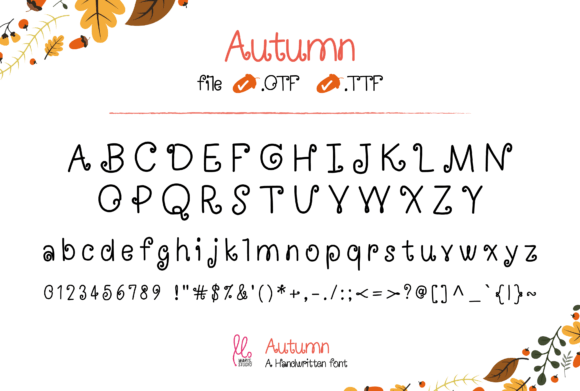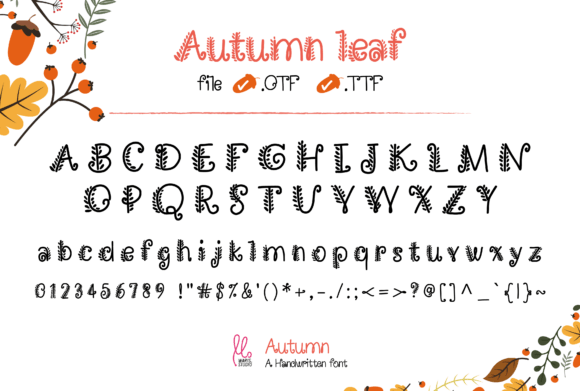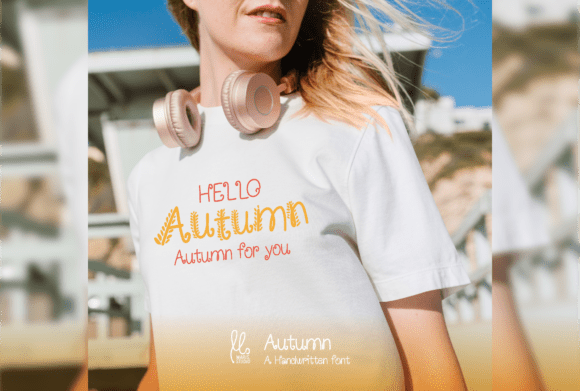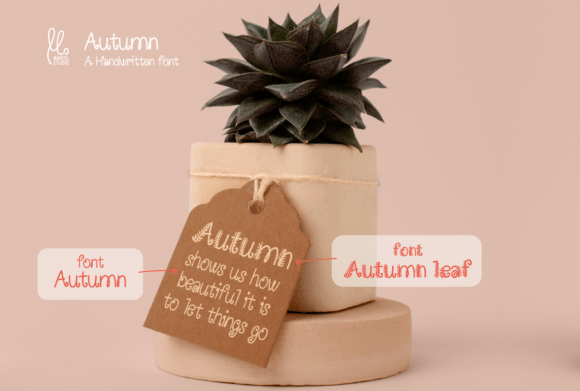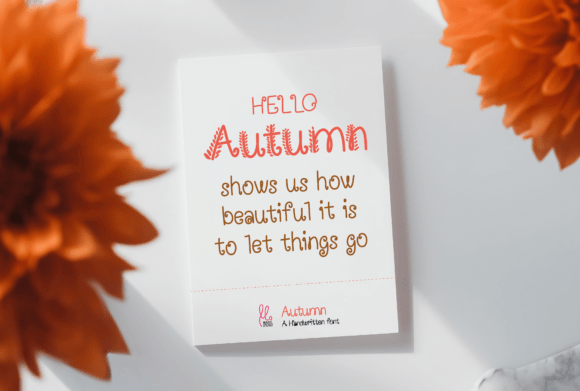
Unleashing the Magic of Autumn
As the leaves start to change colors and the crisp air sets in, I find myself in a creative haze, brainstorming ideas for a cozy autumn-themed project. The smell of pumpkin spice and freshly brewed coffee fills the air, and I’m inspired to create something warm and inviting. And that’s when I turn to my trusty font library, searching for the perfect partner to bring my vision to life.
That’s when I stumbled upon the Autumn Font from Waris Studio – a charming handwritten typeface that embodies the spirit of the fall season. With two distinct yet harmonious styles, this font is perfect for creating designs that evoke a warm, friendly, and unique handmade feel. Whether you’re a seasoned designer or a creative enthusiast, the Autumn Font is an invaluable addition to your toolkit, guaranteed to add a special and memorable touch to all your design creations.
- Unique Characteristics: Autumn Font features a warm, natural color palette with subtle texture and organic feel, perfect for creating cozy and inviting designs.
- Font Styles: Autumn Font includes 5 font styles: Regular, Italic, Bold, Bold Italic, and Outline, offering versatility for various design applications.
Autumn Font Review
As a designer, I’ve had the chance to work with numerous fonts, but Autumn Font caught my eye for its unique charm. Here’s my honest review.
Distinctive yet elegant design, making it perfect for invitations, greeting cards, and other festive occasions.
Wide range of weights, from light to bold, allowing for versatility in use.
High-quality vector graphics ensure crisp, clean lines and a smooth appearance.
Autumn Font may not be the best choice for body text due to its decorative nature.
Some characters might not render correctly in certain fonts or font sizes.
Autumn Font is a beautiful, seasonal font that shines in its unique charm. While it has its limitations, it’s perfect for projects that require a touch of whimsy and festive flair. It’s a great addition to any designer’s toolkit, but be mindful of its uses and limitations.
Autumn Font is perfect for creating designs related to:
- Fall-themed invitations and decorations.
- Seasonal marketing materials.
- Personalized greeting cards and gift tags.
Remember to experiment with different font sizes, colors, and styles to get the most out of Autumn Font.
Alternatives to Autumn Font for Designers
Lato is a modern sans-serif font designed by Łukasz Dziedzic. It is a clean and elegant font suitable for both print and digital designs. Lato is perfect for creating a sophisticated and professional look. Compared to Autumn Font, Lato has a more geometric and minimalistic feel, making it ideal for modern designs.
Montserrrat is a sans-serif font designed by Julieta Ulanovsky. It is a bold and geometric font inspired by the streets of Montserrat, a neighborhood in Buenos Aires. Montserrat is suitable for creating a strong and modern look. Compared to Autumn Font, Montserrat has a more urban and edgy feel, making it perfect for designs that require a bold statement.
Open Sans is a modern sans-serif font designed by Steve Matteson. It is a clean and highly legible font suitable for a wide range of designs. Open Sans is perfect for creating a friendly and approachable look. Compared to Autumn Font, Open Sans has a more neutral and versatile feel, making it ideal for designs that require a balance of style and functionality.